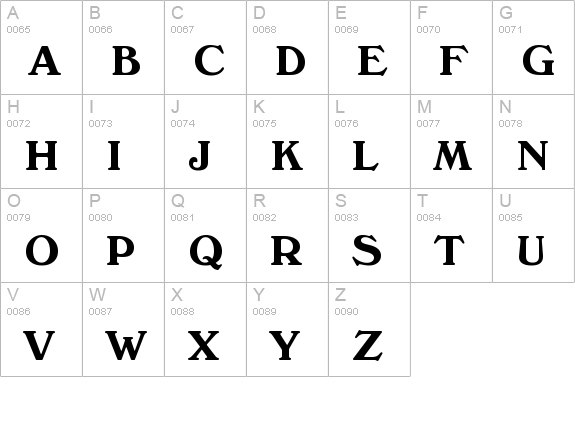
VeronaSerial-Bold Font Details
VeronaSerial-Bold is a strong, high-contrast variant in the VeronaSerial typeface family \xE2\x80\x94 well suited to headlines, attention-grabbing titles, and strong calls-to-action.
VeronaSerial-Bold is a striking and versatile font that exudes modernity and sophistication. Its bold and commanding presence makes it ideal for headlines, titles, and other eye-catching design elements. The strong lines and distinct style of VeronaSerial-Bold make it a standout choice for projects that require a bold and impactful look. Not only does VeronaSerial-Bold offer exceptional visual appeal, but it also provides excellent readability, making it a practical choice for a wide range of design applications. Whether used in print or digital media, this font is sure to make a lasting impression on viewers. Best of all, VeronaSerial-Bold is available for free download at FontsMarket.com. This means that you can easily access this high-quality font without any cost, making it a valuable addition to your font library. Don't miss out on the opportunity to enhance your designs with the bold and dynamic style of VeronaSerial-Bold. Download it today and see the difference it can make in your projects.